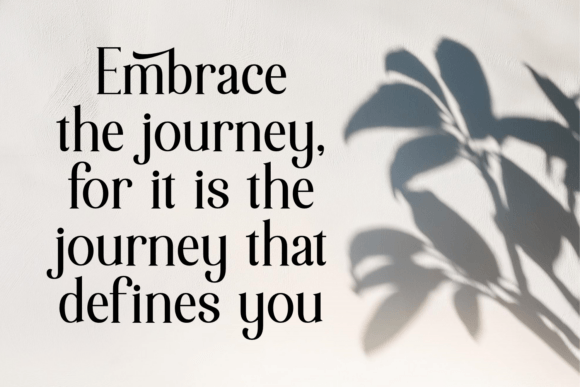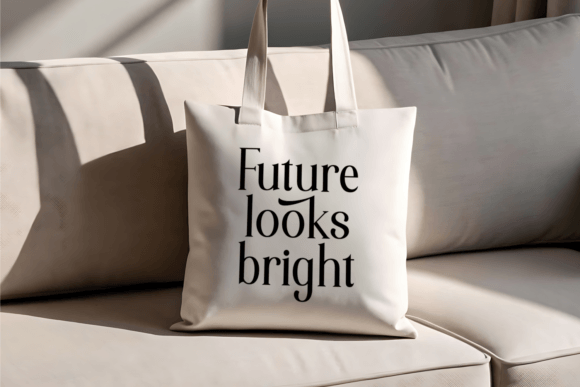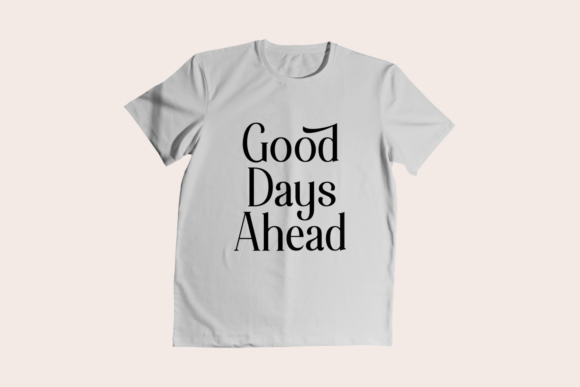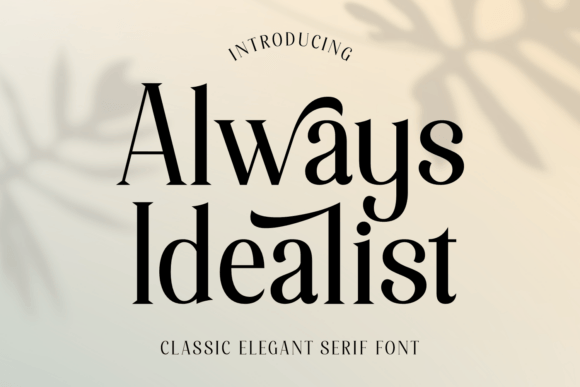
Introduction to Always Idealist Font
Always Idealist is a classic and elegant serif font with smooth, graceful letters.
It has a timeless look that works well for creating a refined, sophisticated feel in any design Perfect for headings, logos, and invitations, it adds a touch of class and charm to your text.
Why Choose Always Idealist Font?